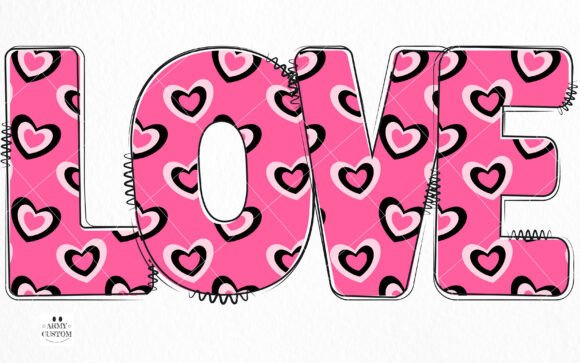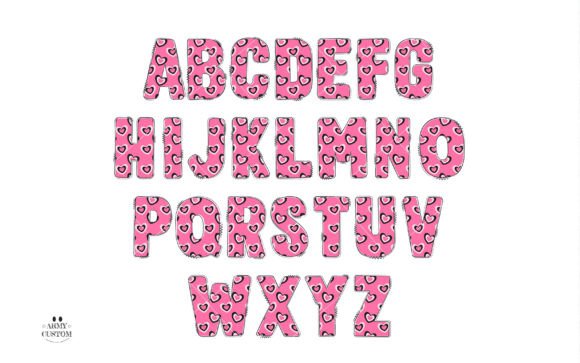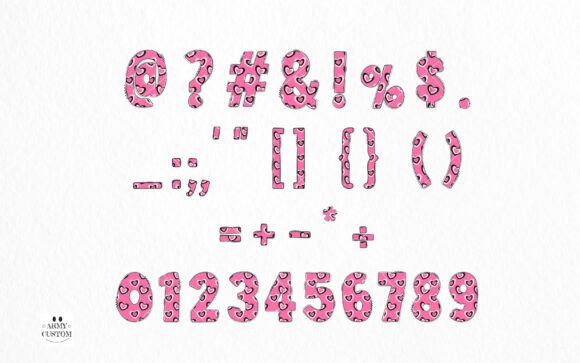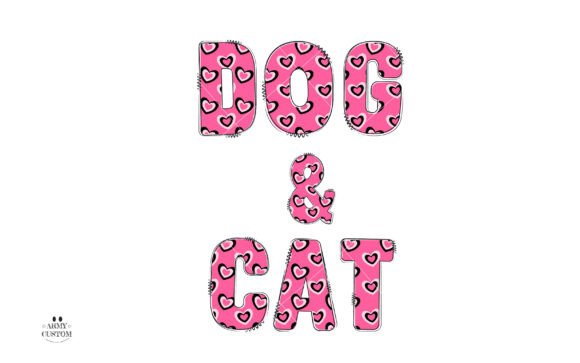
Introduction to Love Valentine’s Layer Heart Font
Have you ever stumbled upon the perfect font for a creative project and felt like it was meant to be? That’s exactly what happens when you come across the enchanting Love Valentine’s Layer Heart Font. This beautifully crafted doodle font is a treasure trove of love and affection, making it the ideal choice for expressing your sentiments on Valentine’s Day.
With its intricately doodled heart patterns, this font is sure to touch your heart and make your designs stand out. Whether you’re a seasoned designer or just starting out, the Love Valentine’s Layer Heart Font is a valuable resource that will elevate your creative work. Its transparent background and high-quality design make it perfect for a variety of projects, from romantic cards to social media posts.
Key Features of Love Valentine’s Layer Heart Font
- High-quality vector design ideal for creative projects and romantic occasions
- Comes in a transparent background, making it easy to use in various design scenarios
- Unique characteristics include intricate layering and heart-shaped designs, perfect for Valentine’s Day and love-themed projects
- Easy to customize and edit, making it a great addition to any design project
Honest Review: Love Valentine’s Layer Heart Font
As a designer, I’m always on the lookout for unique and high-quality design resources to add some extra flair to my creative projects. The Love Valentine’s Layer Heart Font is definitely one such gem that caught my attention.
What works well about this font is its versatility and customizability. You can use it for a variety of purposes, from wedding invitations to social media graphics, and even as a free download for personal projects. The transparent background is also a great feature, allowing you to easily layer it with other design elements. ✨
- Customizable and versatile
However, I do have a few reservations about this font. The layering system can be a bit finicky, and the font may not render as smoothly in certain software. ⚠️
Overall, I would say that the Love Valentine’s Layer Heart Font is a great addition to any designer’s toolkit. Its unique design and high-quality features make it a valuable resource for any creative project. With a little practice and patience, you’ll be able to get the most out of this font and create some truly stunning designs.
The Love Valentine’s Layer Heart Font is a versatile design resource that can be used in a variety of creative projects, including:
- Valentine’s Day cards and invitations
- Anniversary cards and gifts
- Love-themed social media graphics